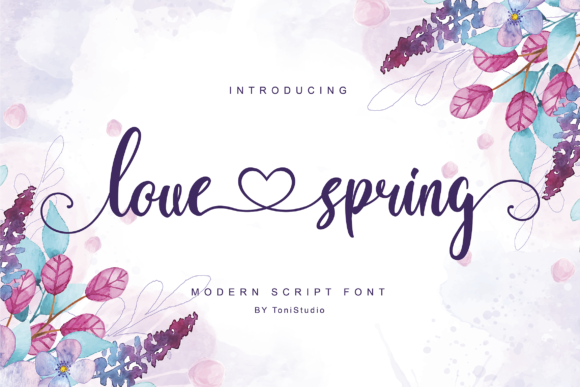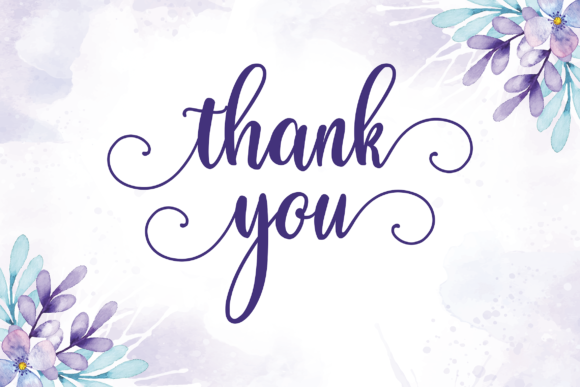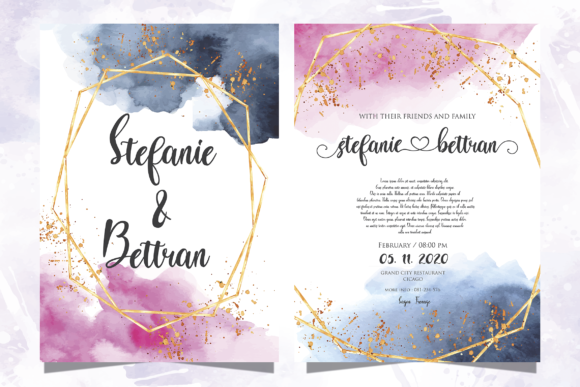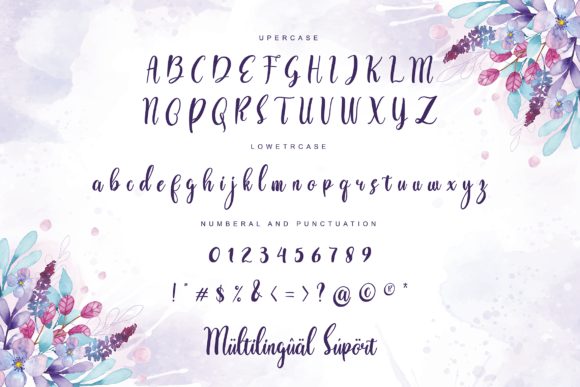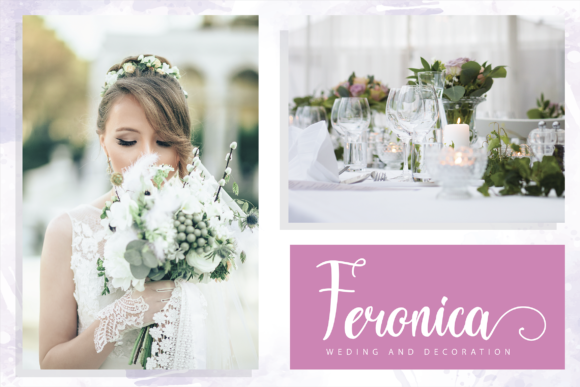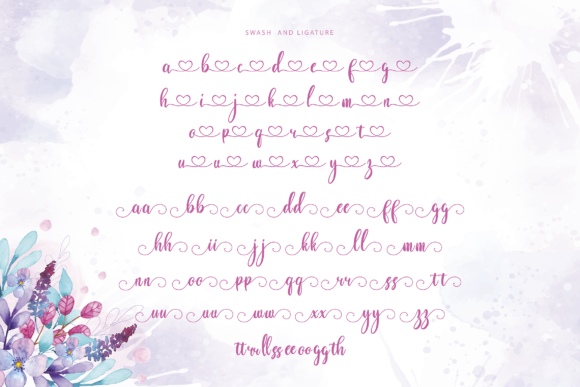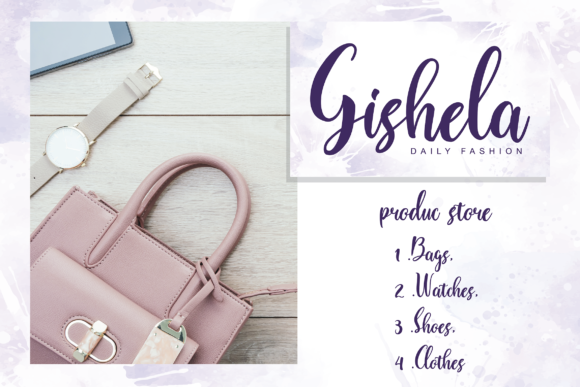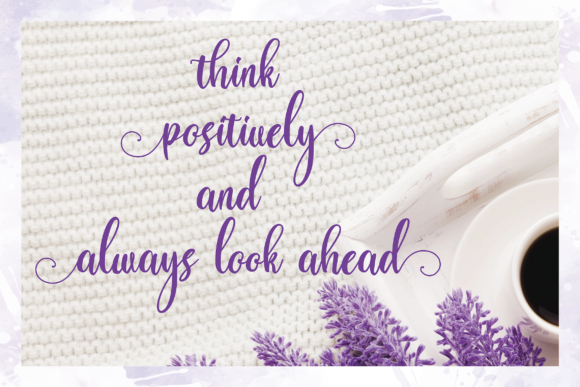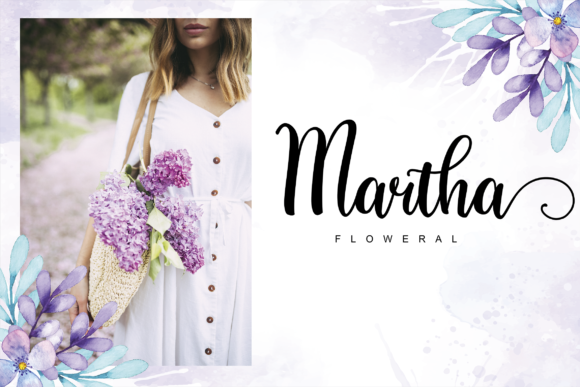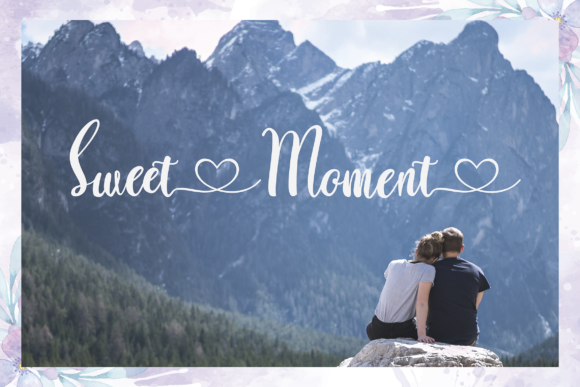
Love Spring Font
Love Spring is a cute and friendly handwritten font. Fall in love with its authentic feel and use it to create gorgeous wedding invitations, beautiful stationary art, eye-catching social media posts, and cute greeting cards.
This font is PUA encoded which means you can access all of the heart-themed glyphs and swashes with ease! It also features a wealth of special features including alternate glyphs and ligatures.